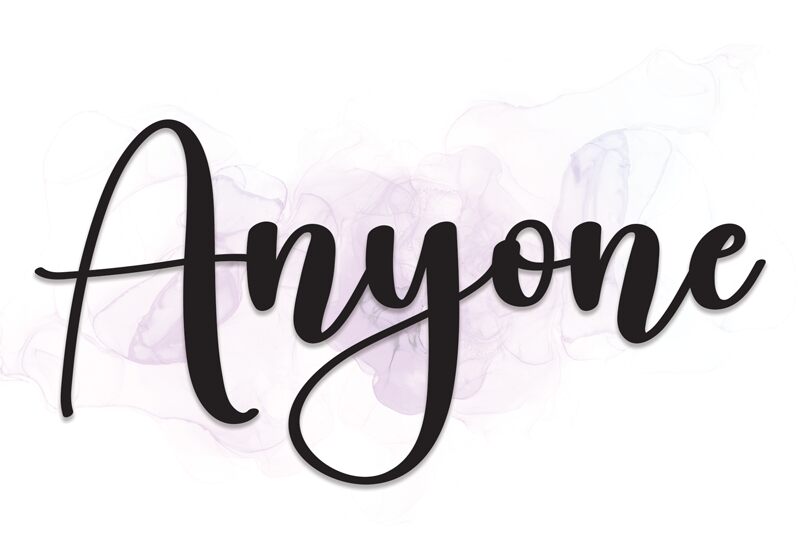
Anyone
The Anyone font, designed by Scratchones, is a mesmerizing calligraphy typeface that adds an elegant touch to any project.
Its semi-light weight creates a delicate and graceful appearance, perfect for wedding invitations, romantic poetry books, or high-end fashion magazines. The intricate curves and flowing strokes of the Anyone font bring sophistication to branding materials for luxury hotels or exclusive boutiques. Whether used in logo design, packaging labels, or social media graphics, this calligraphy font effortlessly captures attention and exudes sophistication.
Elevate your designs with the enchanting beauty of the Anyone font.
The latest style letters are perfect for wall displays, wedding invitations, social media post logos, advertisements, product packaging, product designs, labels, photography, watermarks, invitations, stationery, and any project that requires taste handwriting.